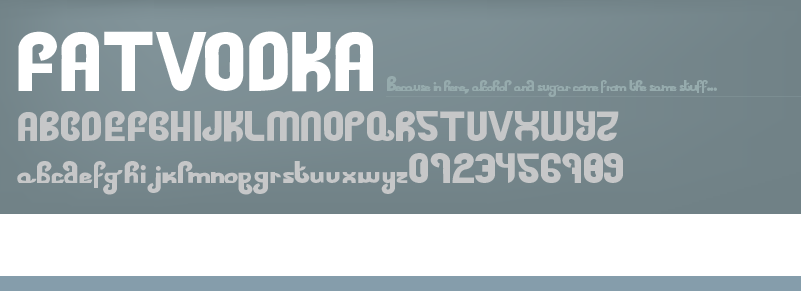
Preview and download Fat Vodka Font. Created by Thais Trizoli in Fancy Various styles with 100% Free license.
FatVodka_because in here, alcohol and sugar come from the same stuff .strange curves in a sans serif body, like grease in pure vodka. |